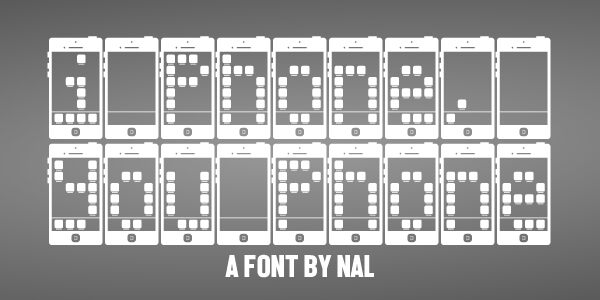
I Phone, You Phone by Andrew McCluskey is a free decorative display font that turns each letter into a smartphone illustration. Repeated handset frames, speaker slots, home buttons, and rounded key arrangements give the alphabet a playful early-touchscreen character.
A mobile repair brand or technology event could use it for a logo, poster, or merchandise aimed at gadget enthusiasts. In editorial graphics, the phone outlines can double as small illustrations, making the lettering useful for stories about mobile culture.
I Phone, You Phone
Andrew McCluskey